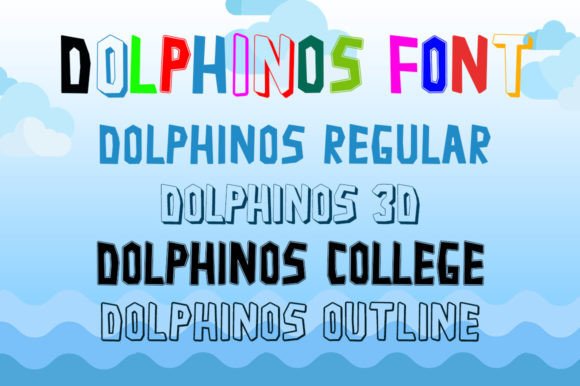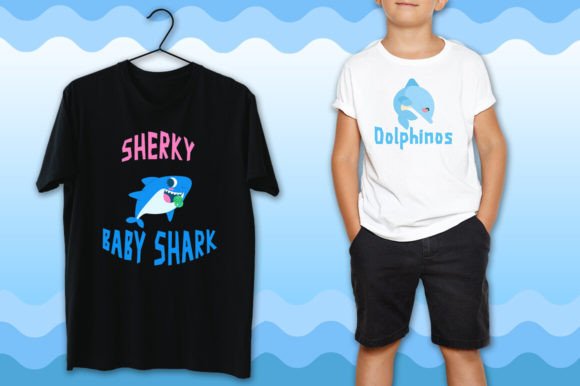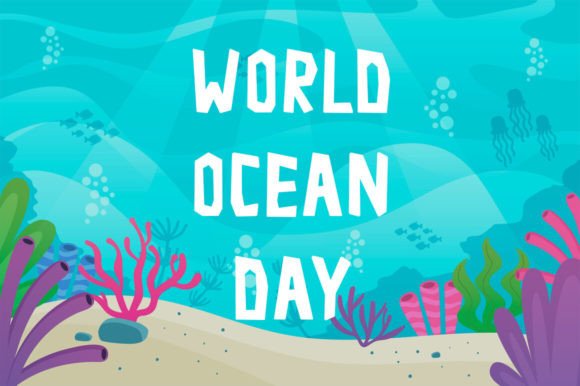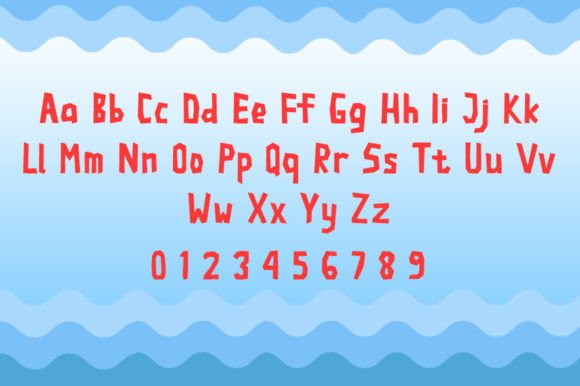
Dolphinos Font: The Playful and Unique Display Font for Creative Designs
Are you looking for a font that can add a touch of playfulness and uniqueness to your designs? Look no further than Dolphinos Font! This display font is perfect for creating cute and eye-catching designs, such as children’s posters, comics, film titles, cartoons, and more. In this article, we’ll dive into the features and benefits of Dolphinos Font, and explore how it can elevate your design projects.
What is Dolphinos Font?
Dolphinos Font is a display font that boasts a random and unique shape, making it perfect for designs that require a playful and whimsical touch. The font’s irregular shape and cute aesthetic make it an ideal choice for designs aimed at a younger audience, such as children’s posters, comics, and cartoons. However, its versatility also makes it suitable for a wide range of design projects, from film titles to social media graphics.
Key Features of Dolphinos Font
- Unique and Random Shape: Dolphinos Font features a one-of-a-kind, irregular shape that sets it apart from other display fonts.
- Cute and Playful Aesthetic: The font’s design is perfect for creating cute and eye-catching designs that appeal to a younger audience.
- Versatile: Despite its playful nature, Dolphinos Font can be used for a wide range of design projects, from children’s posters to film titles.
- Easy to Read: Despite its unique shape, Dolphinos Font is easy to read, making it perfect for designs that require a clear and concise message.
Benefits of Using Dolphinos Font
So, why should you choose Dolphinos Font for your design projects? Here are just a few benefits of using this unique display font:
- Adds a Touch of Whimsy: Dolphinos Font can add a playful and whimsical touch to your designs, making them stand out from the crowd.
- Perfect for Children’s Designs: The font’s cute aesthetic makes it perfect for designs aimed at children, such as posters, comics, and cartoons.
- Increases Engagement: The unique shape and playful nature of Dolphinos Font can help increase engagement and capture the attention of your audience.
- Versatile and Adaptable: Dolphinos Font can be used for a wide range of design projects, making it a great addition to your font library.
Design Ideas Using Dolphinos Font
So, how can you use Dolphinos Font in your design projects? Here are a few ideas to get you started:
- Children’s Posters: Use Dolphinos Font to create eye-catching posters for children’s events, such as birthday parties or school plays.
- Comics and Cartoons: Add a playful touch to your comics and cartoons with Dolphinos Font, perfect for creating fun and engaging characters.
- Film Titles: Use Dolphinos Font to create unique and eye-catching film titles that capture the playful and whimsical nature of your movie.
- Social Media Graphics: Add a touch of playfulness to your social media graphics with Dolphinos Font, perfect for creating engaging and shareable content.
In conclusion, Dolphinos Font is a unique and playful display font that’s perfect for adding a touch of whimsy to your designs. With its irregular shape and cute aesthetic, it’s ideal for designs aimed at a younger audience, such as children’s posters, comics, and cartoons. However, its versatility also makes it suitable for a wide range of design projects, from film titles to social media graphics. So why not give Dolphinos Font a try and see how it can elevate your design projects?
Whether you’re a designer, crafter, or simply someone looking for a unique font to add to your library, Dolphinos Font is definitely worth checking out. Its playful and whimsical nature makes it perfect for creating engaging and eye-catching designs that capture the attention of your audience. So go ahead, get creative, and see what amazing designs you can create with Dolphinos Font!